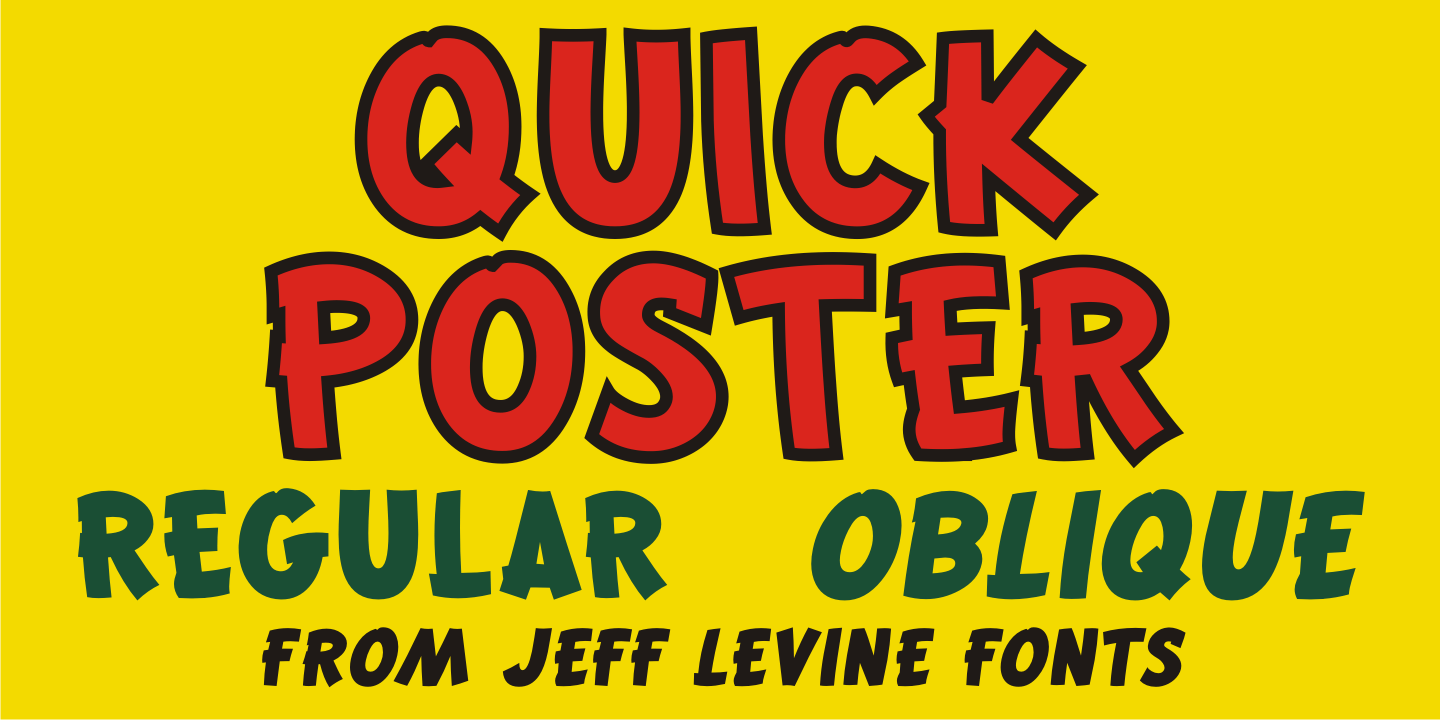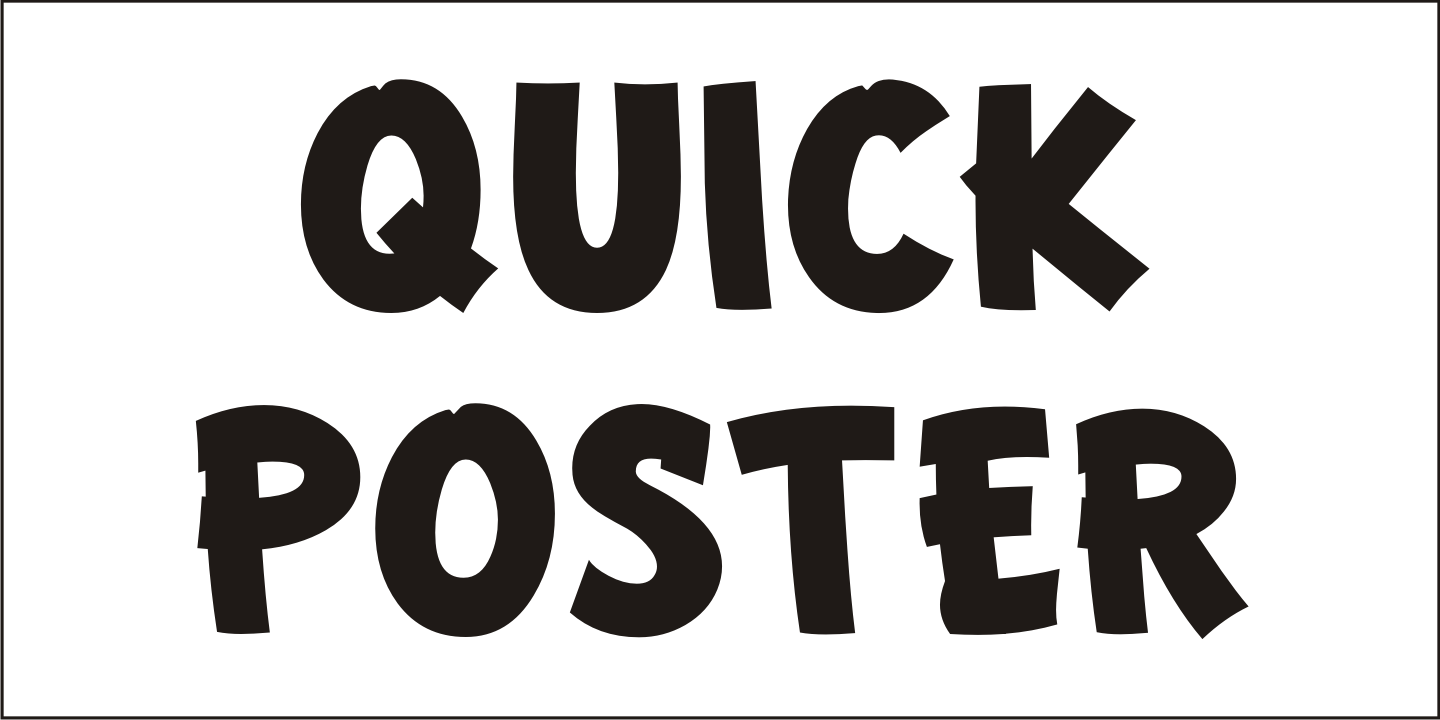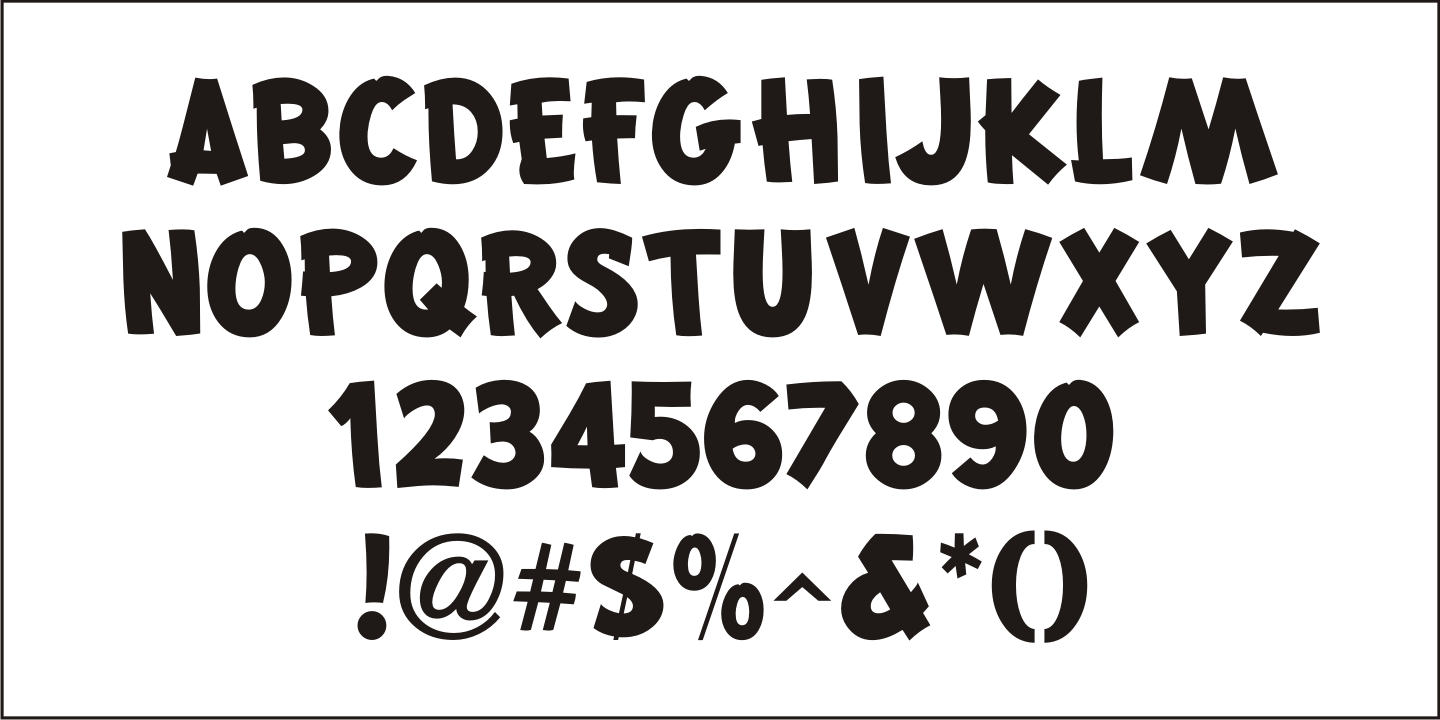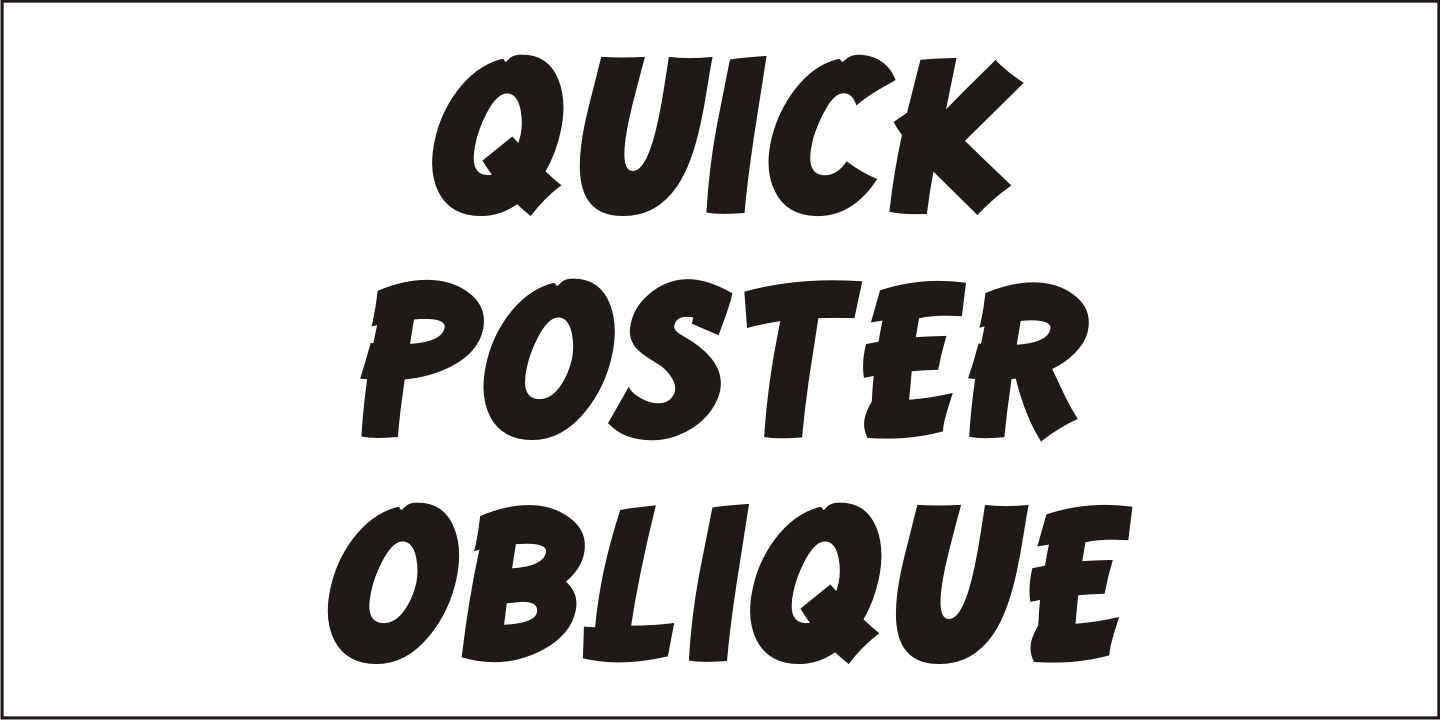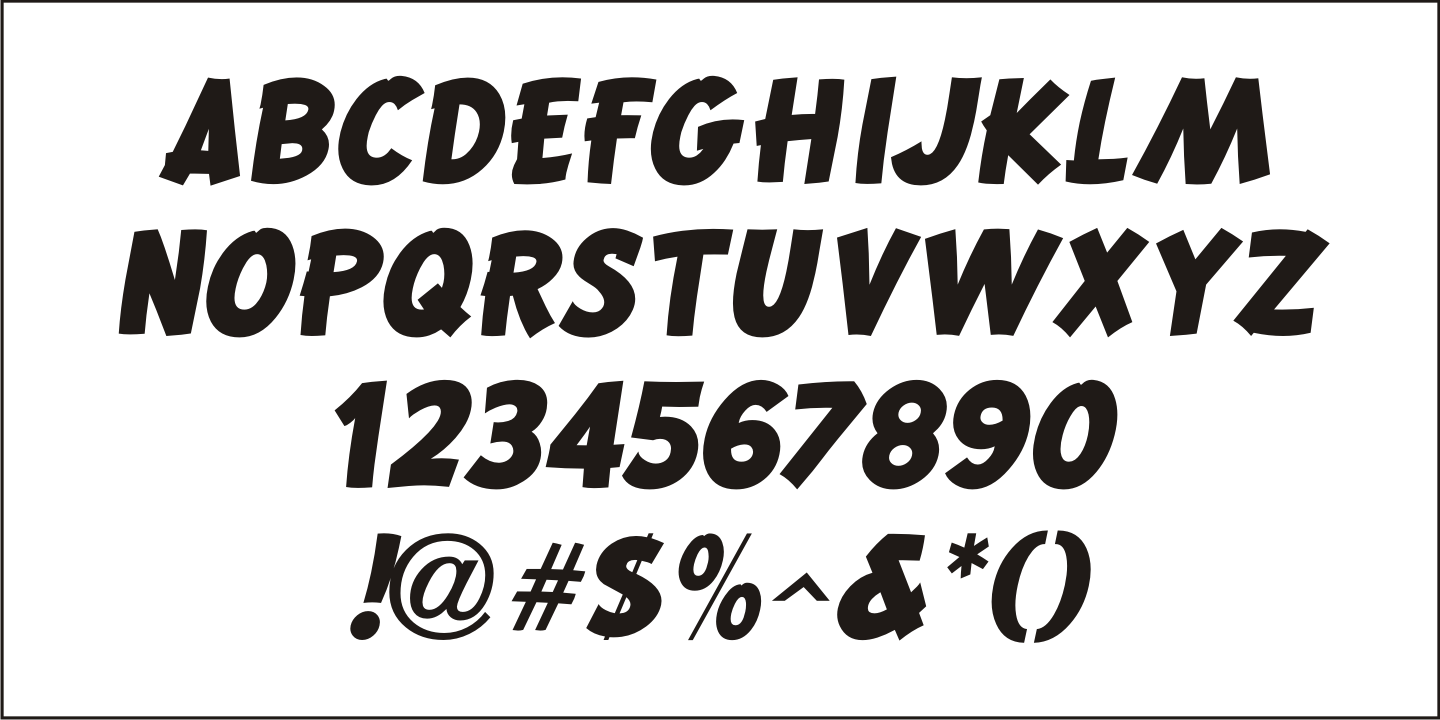
Quick Poster
A vintage poster from the British Columbia Forest Service on the subject of forest fire prevention provided the hand lettering that was the design model for Quick Poster JNL; available in both regular and oblique versions.
Quick Poster JNL Regular by Jeff Levine Fonts